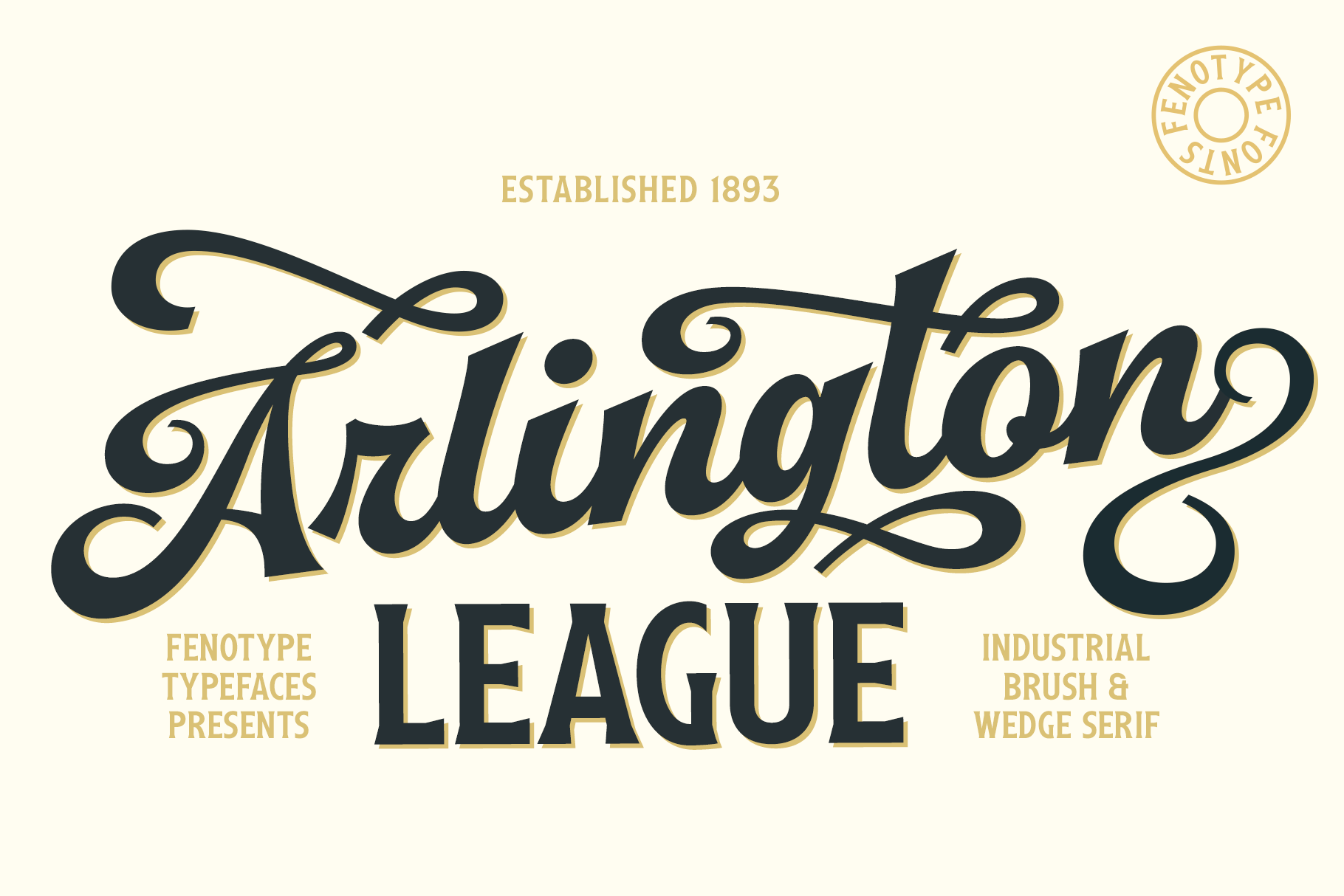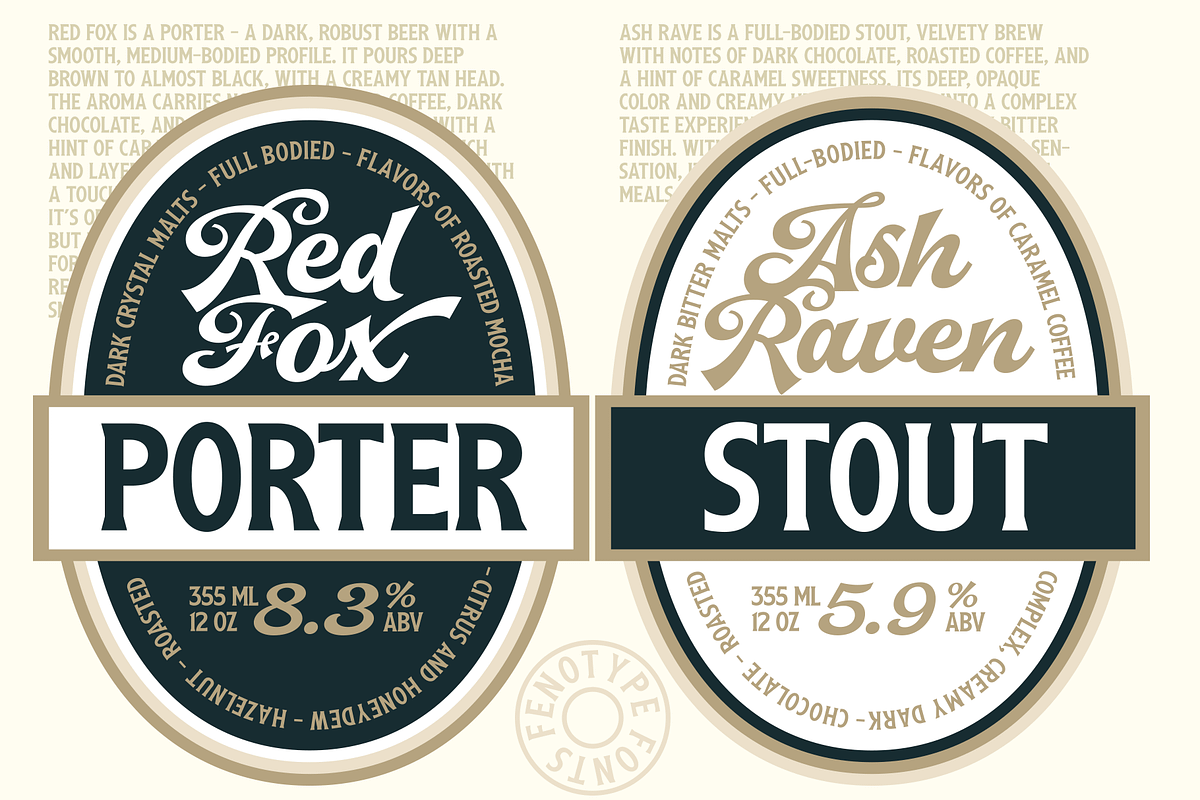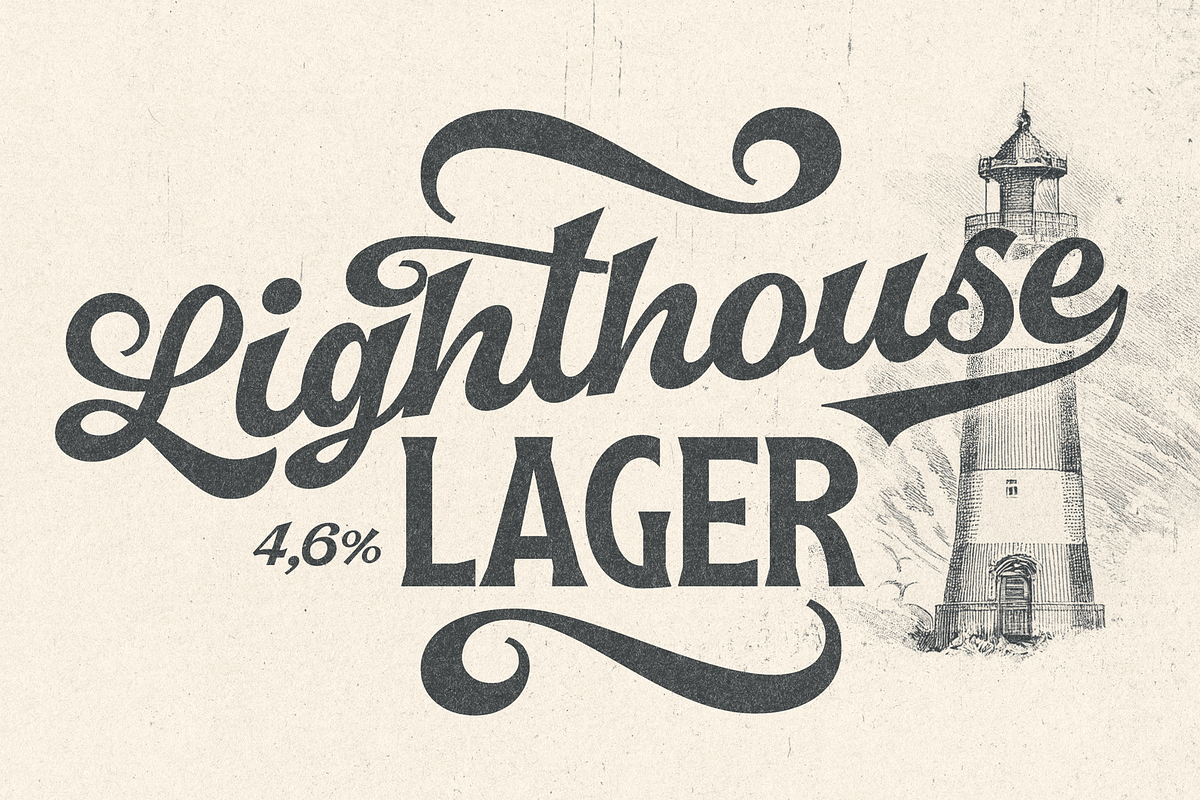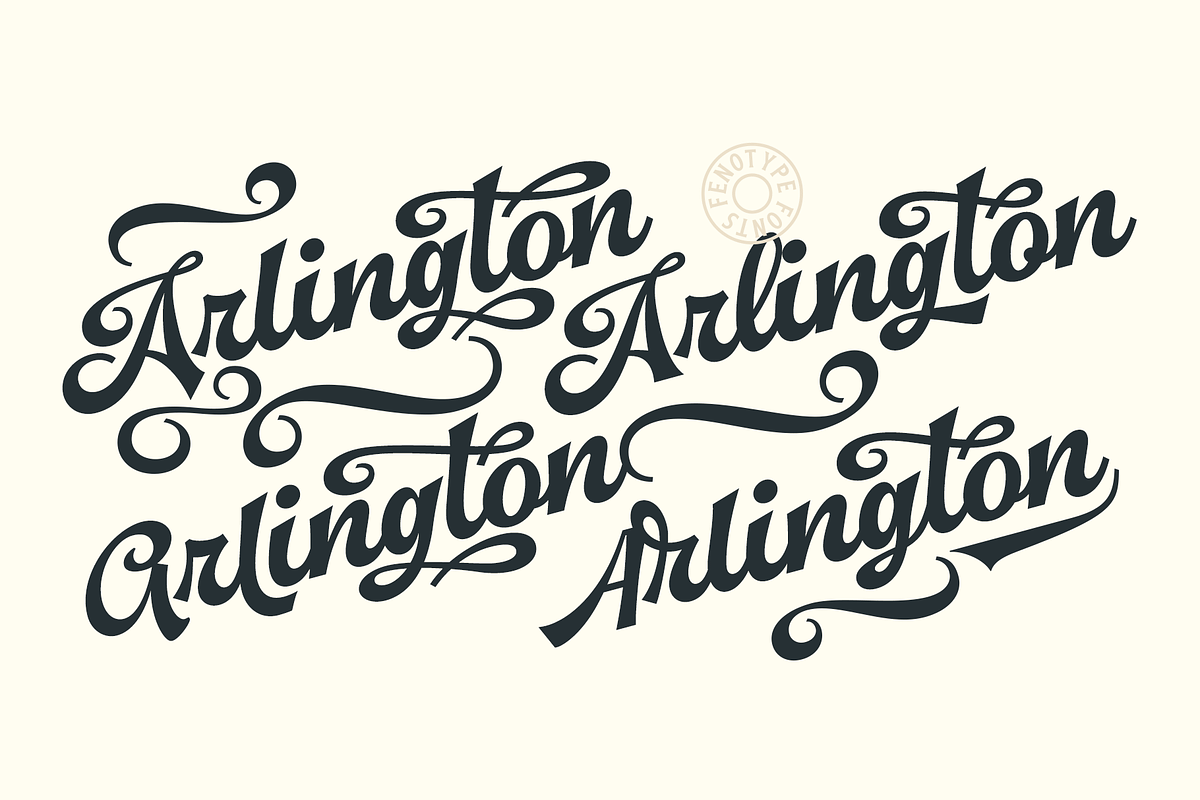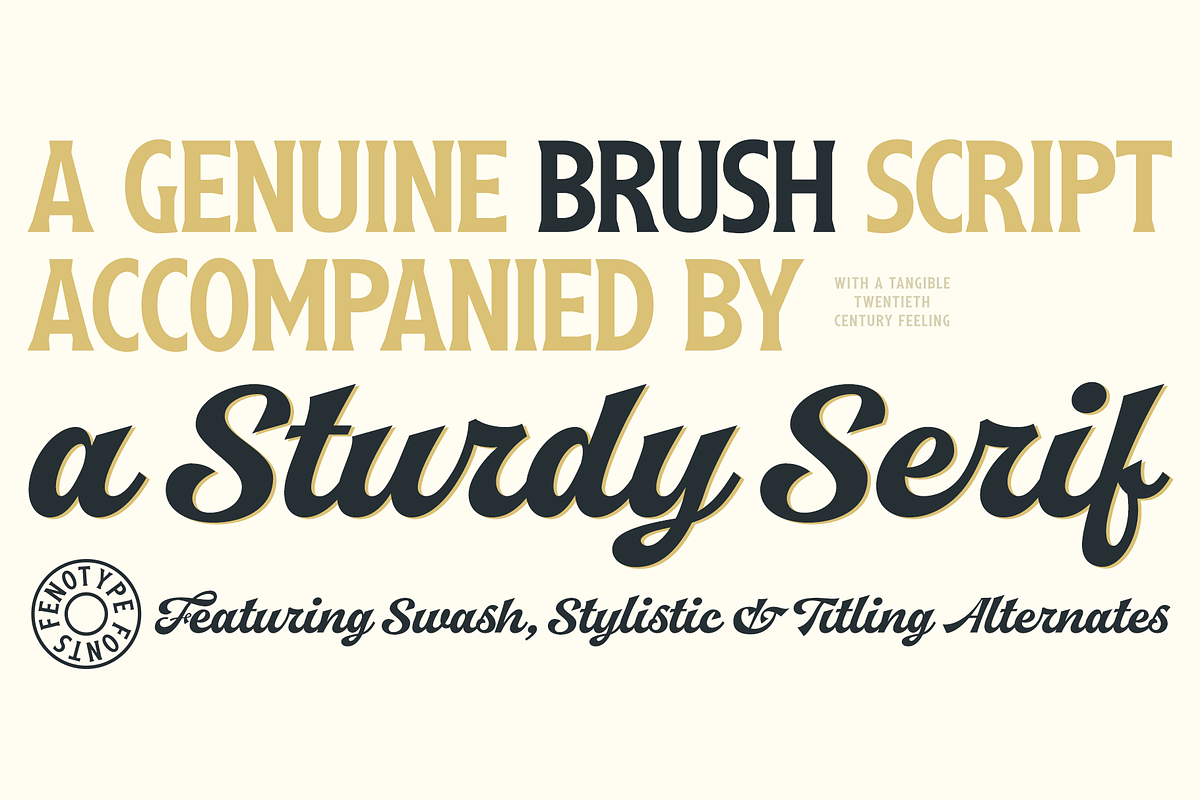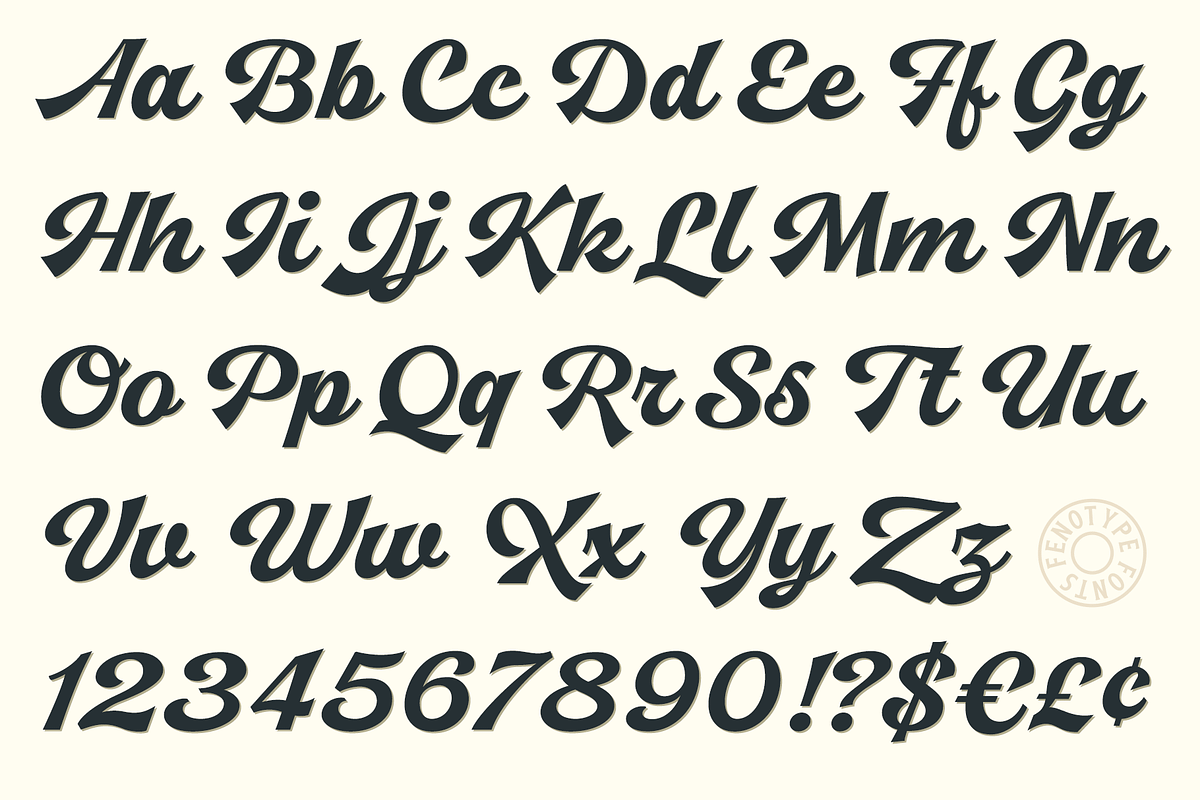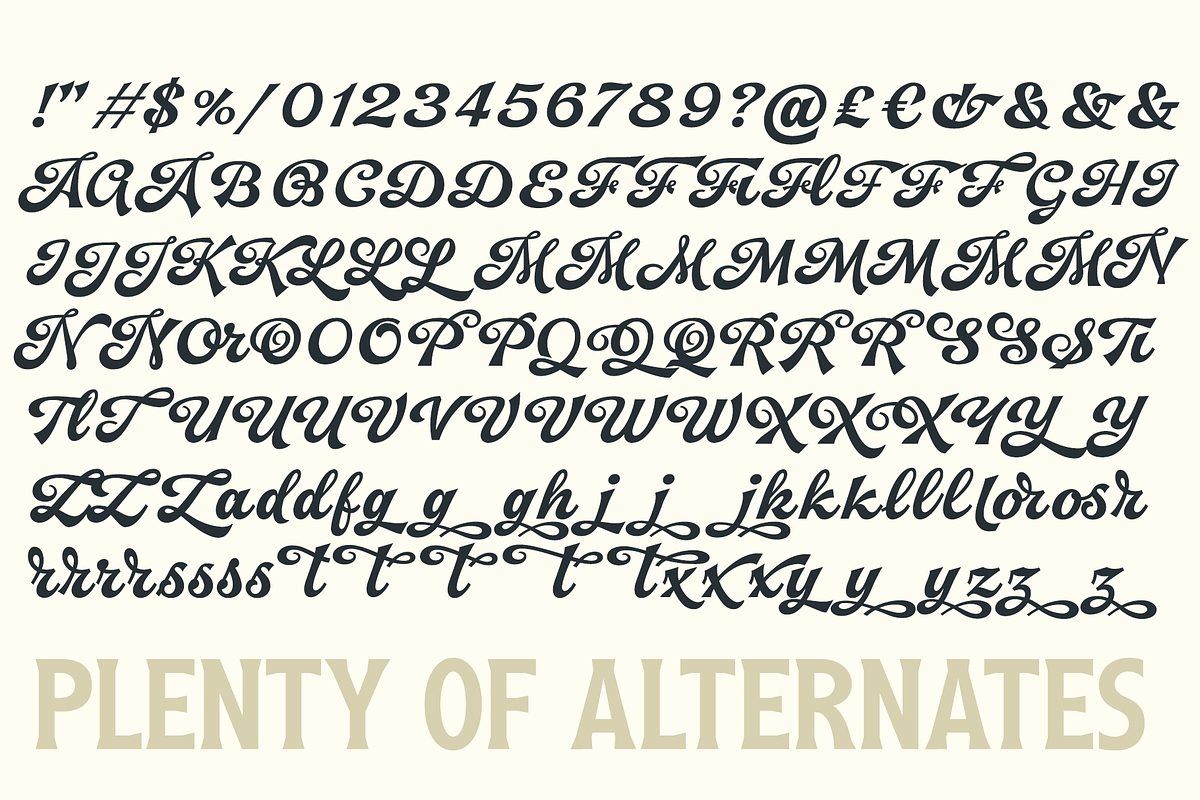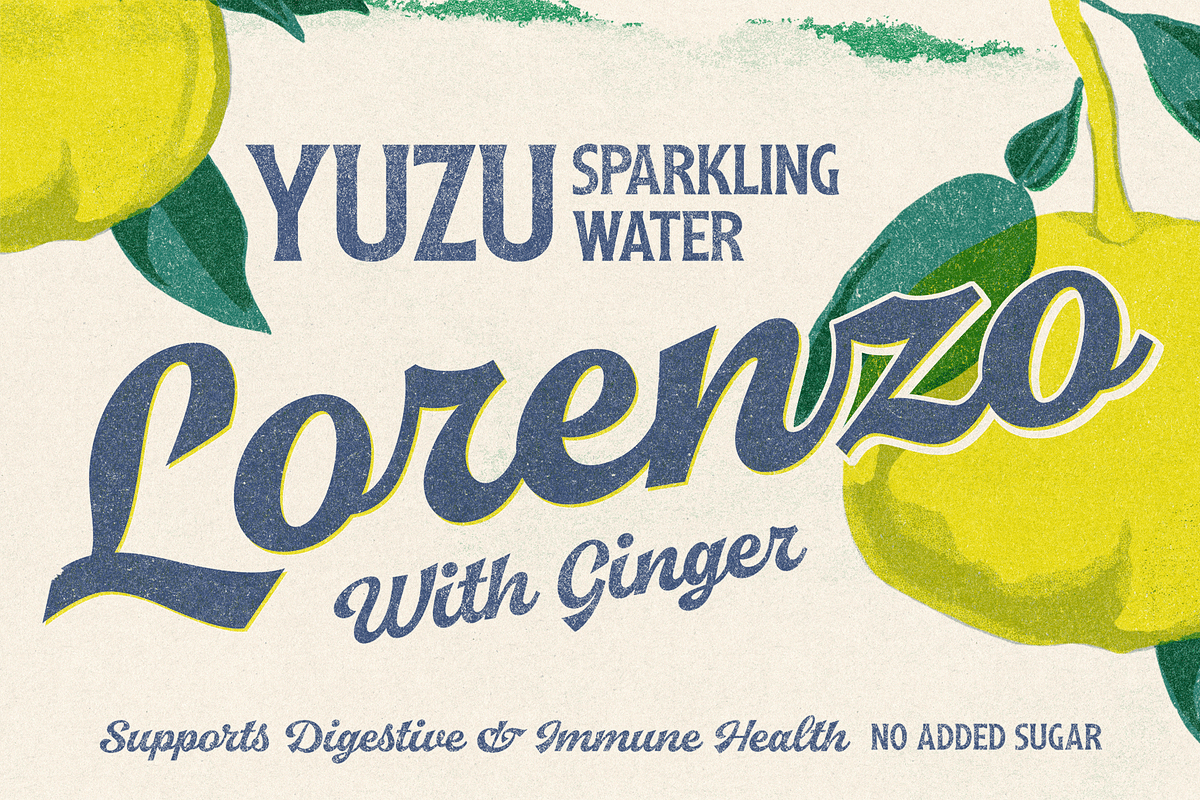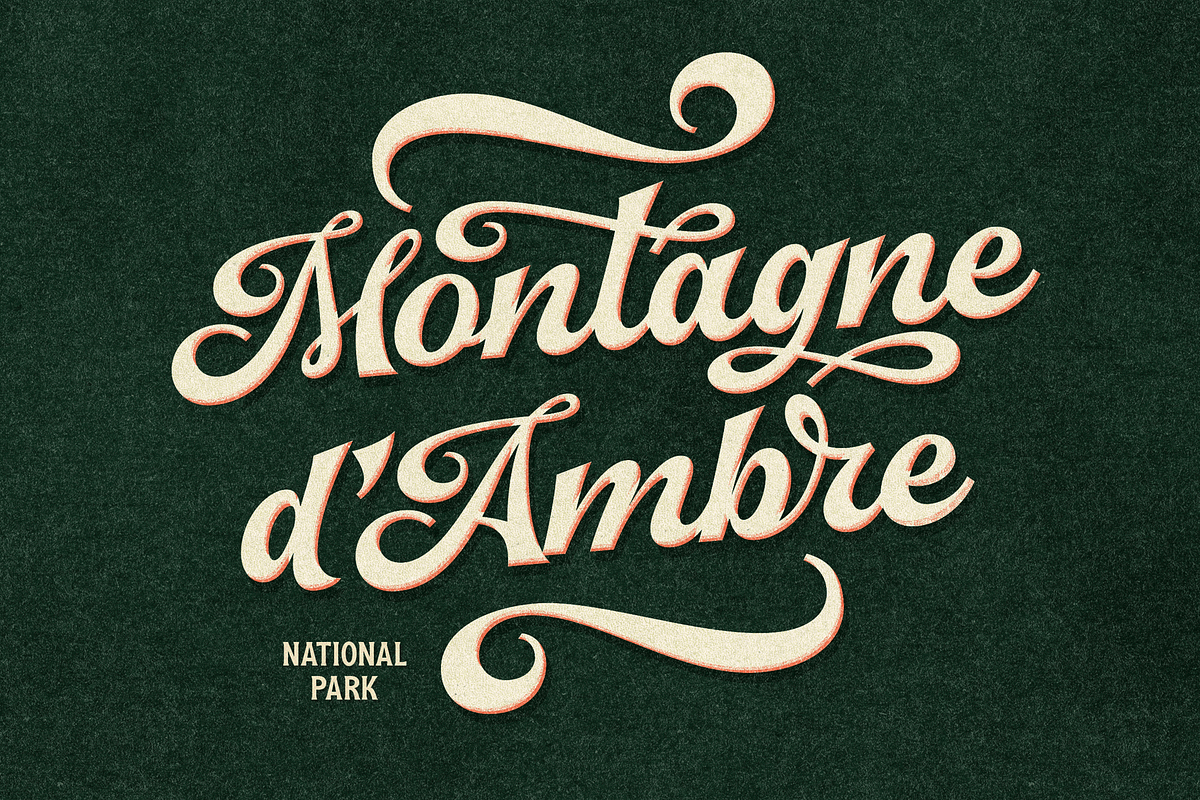
Arlington League -Sport Font Duo
Arlington League is a vintage-inspired type pair featuring a sharp cut brush script and a low-contrast condensed flared serif. Ideal for adding a touch of classic style to sport logos, beer labels, and baseball scripts, the brush script comes equipped with extensive OpenType features. These include Swash, Stylistic, and Titling alternates for expressive character variations, along with a selection of ornamental shapes and swooshes accessible through Stylistic Alternates 1.